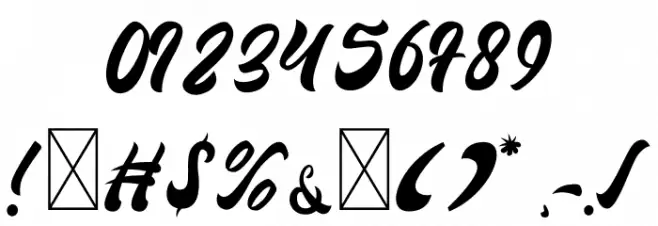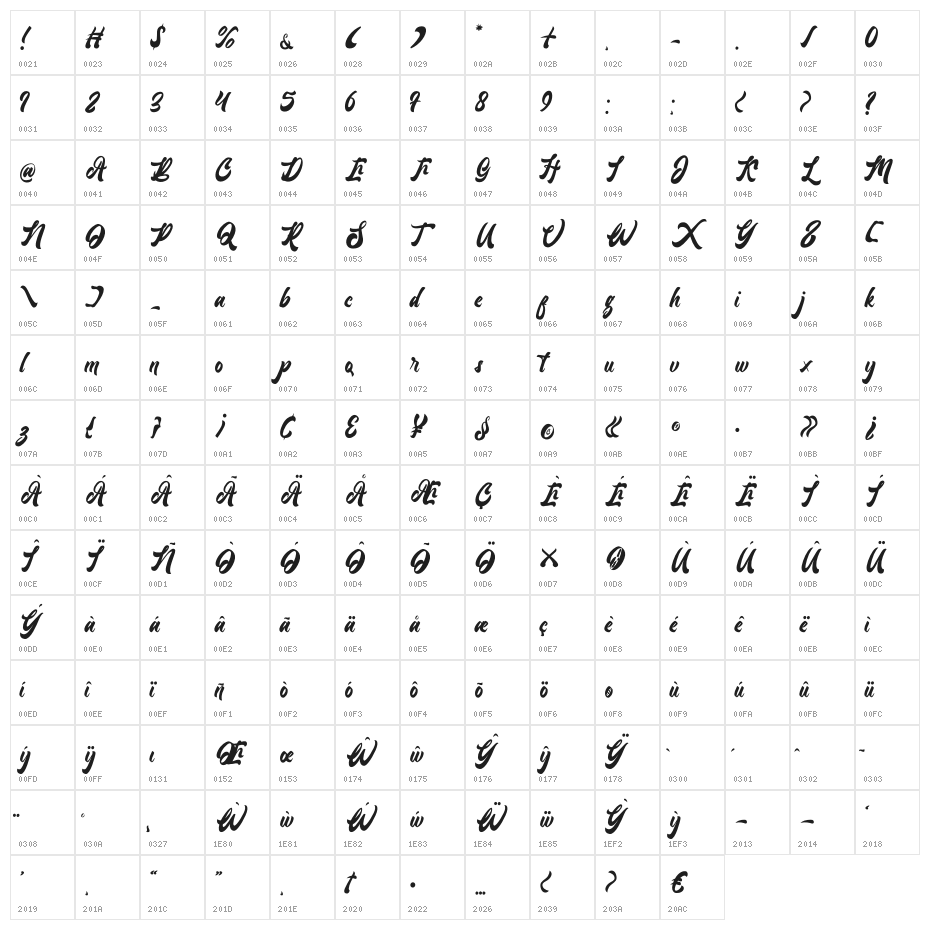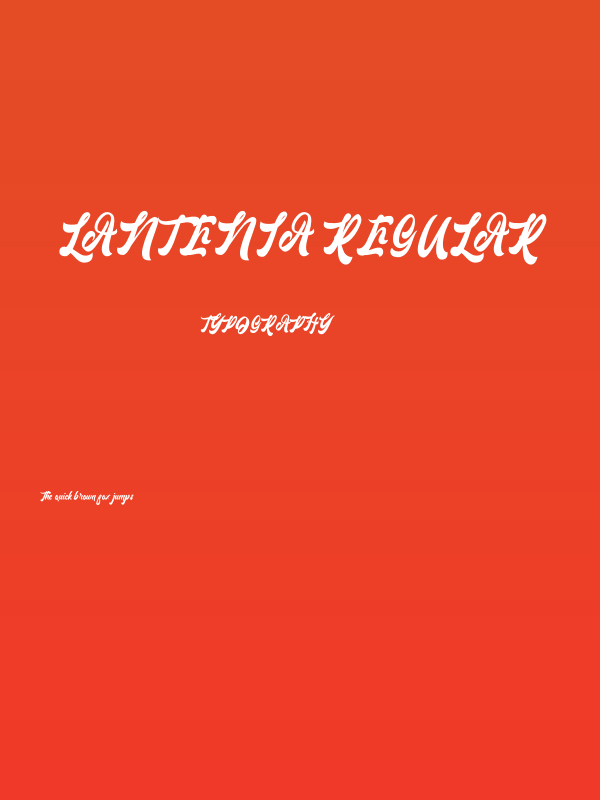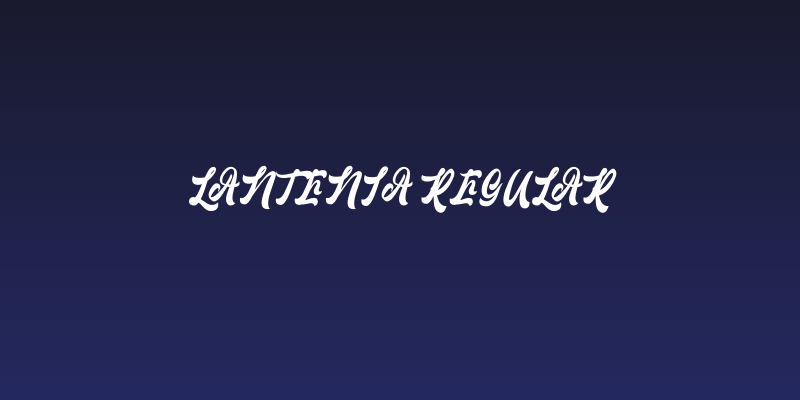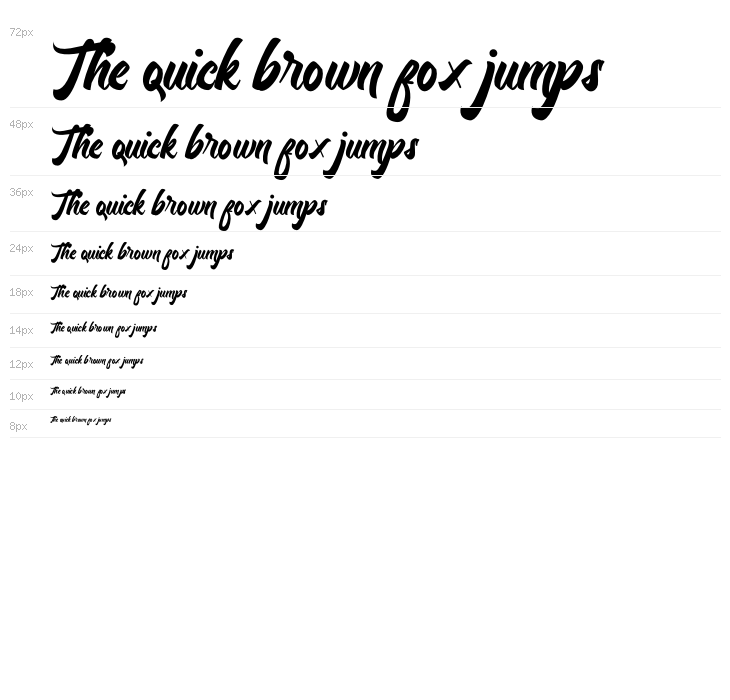
Lantenia Regular Font
Lantenia Regular Description
This font features a bold, cursive style with a strong emphasis on fluidity and elegance. The characters are interconnected, creating a seamless flow that mimics natural handwriting. The uppercase letters are ornate and slightly larger, providing a striking contrast to the more compact lowercase letters. The numerals maintain the same cursive style, ensuring consistency throughout. Special characters are creatively designed, adding a unique flair to the overall aesthetic. This font is ideal for projects that require a personal touch, such as invitations, greeting cards, or branding materials.
| Proposed Projects | Ideal for invitations, greeting cards, branding, and decorative projects. |